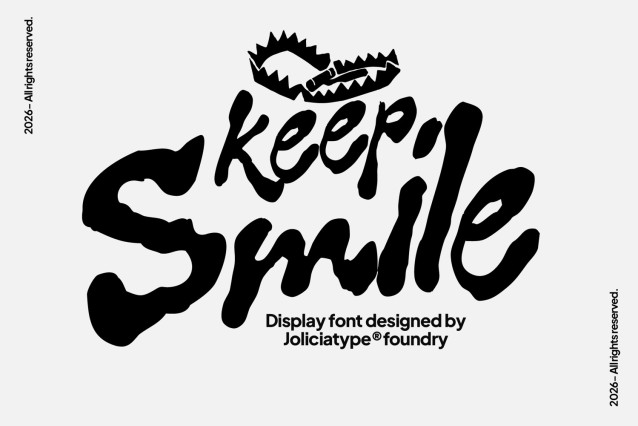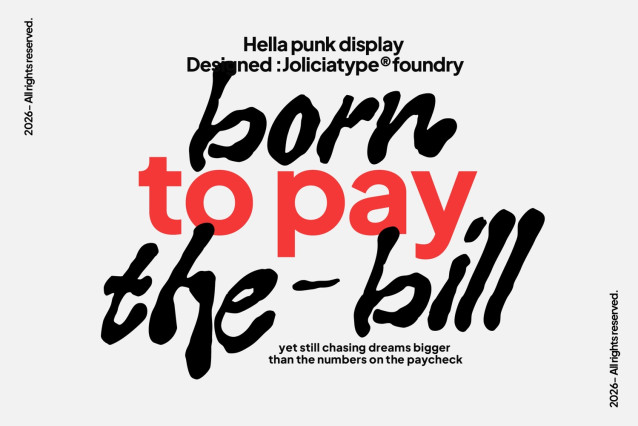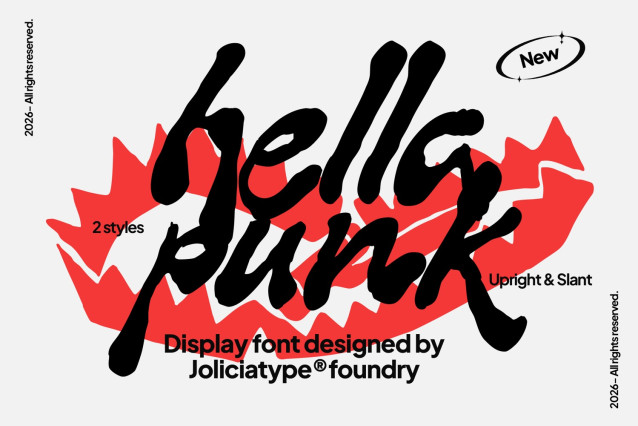
Hella Punk Display Font
Hella Punk is a raw handmade display font inspired by the rebellious spirit of street culture, underground scenes, and punk aesthetics. Crafted with rough organic strokes and an intentionally imperfect style, this font captures the energy of hand-painted signs, graffiti tags, and DIY posters found in urban environments.
Its bold and expressive letterforms create a strong visual impact, making it perfect for music artwork, streetwear branding, album covers, posters, packaging, and rebellious design projects. With its authentic handcrafted appearance and untamed personality, Hella Punk delivers a loud, fearless, and unapologetically street-inspired attitude to every design.
Best suited to music festival posters, band merchandise, skate and streetwear apparel, album covers, and edgy editorial layouts. It brings an authentic, counter-culture energy to display headlines, event banners, and bold social graphics where a clean, polite typeface simply will not do.